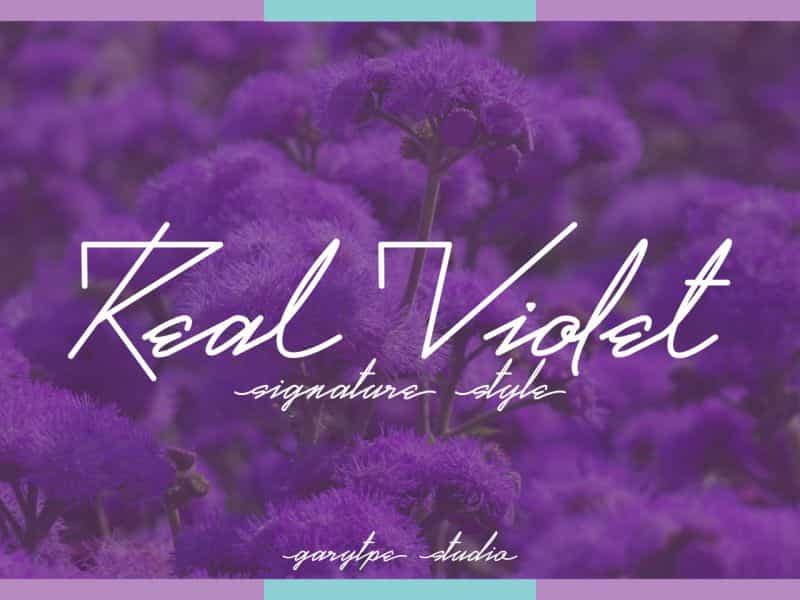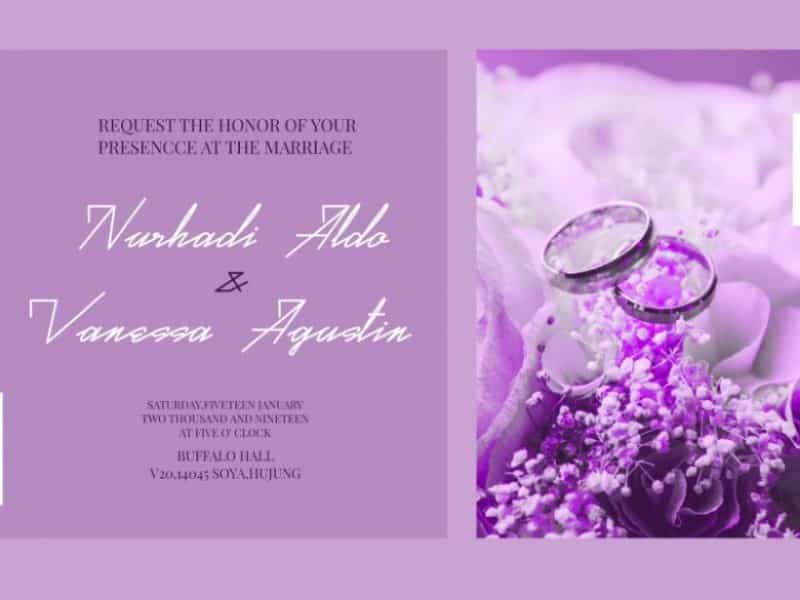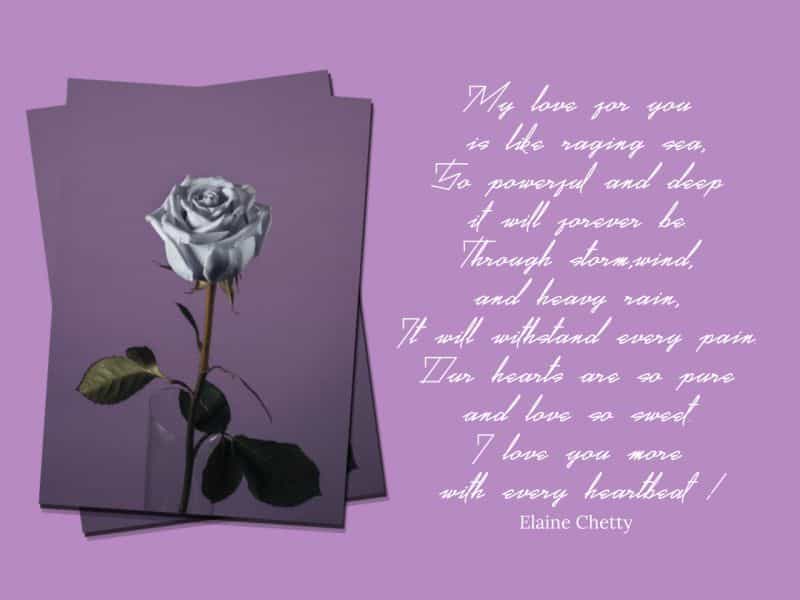
Discover Real Violet Handwritten Font, part of the Calligraphy Handwritten collection—a versatile and unique font perfect for adding a personal touch to your projects. Download it for free and enjoy crafting designs with style, from invitations to social media posts. This font is available exclusively for personal use, giving you the freedom to create without limits. Unlock your creativity with Real Violet Handwritten Font today!
Let us present to you the real violet, signature style fonts. Motivated by a gorgeous, neat and blameless life. Real violet is your best choice for such needs as mooboard, wedding, private signature quotes, watermarks, logos, flyers, poster, letterhead, apparel, your etc.